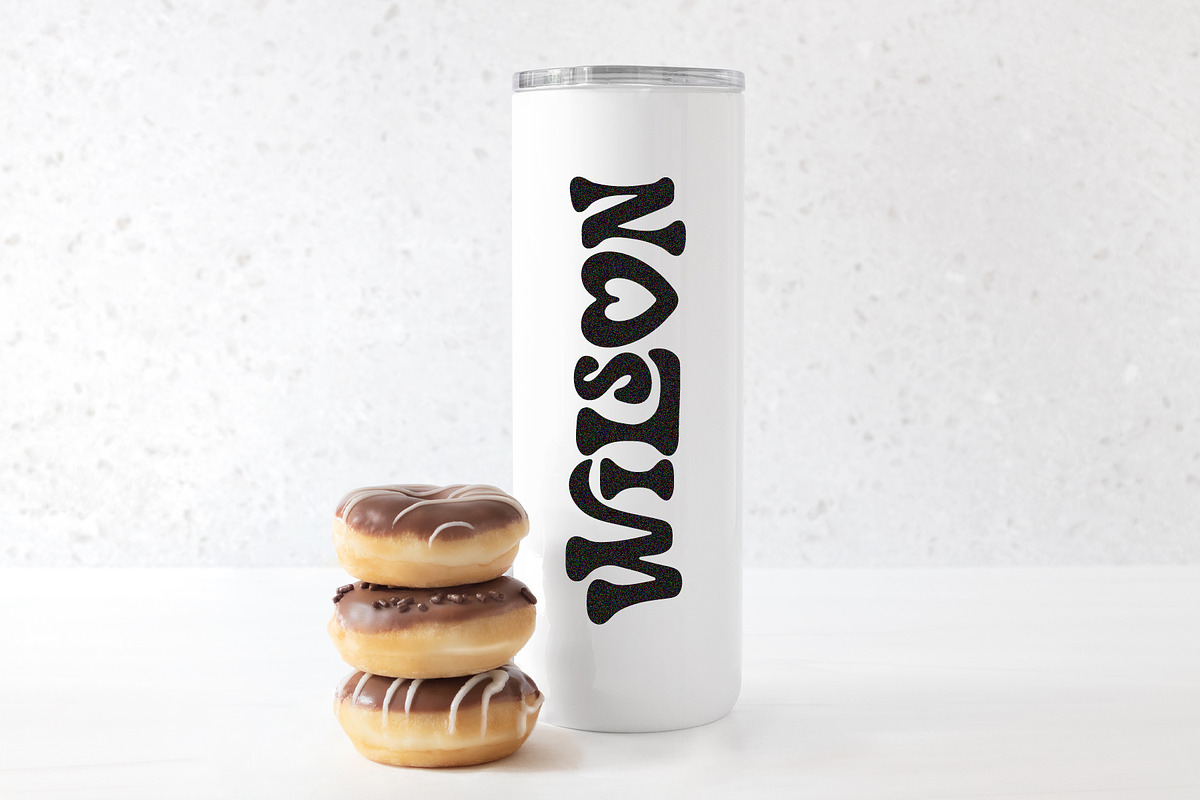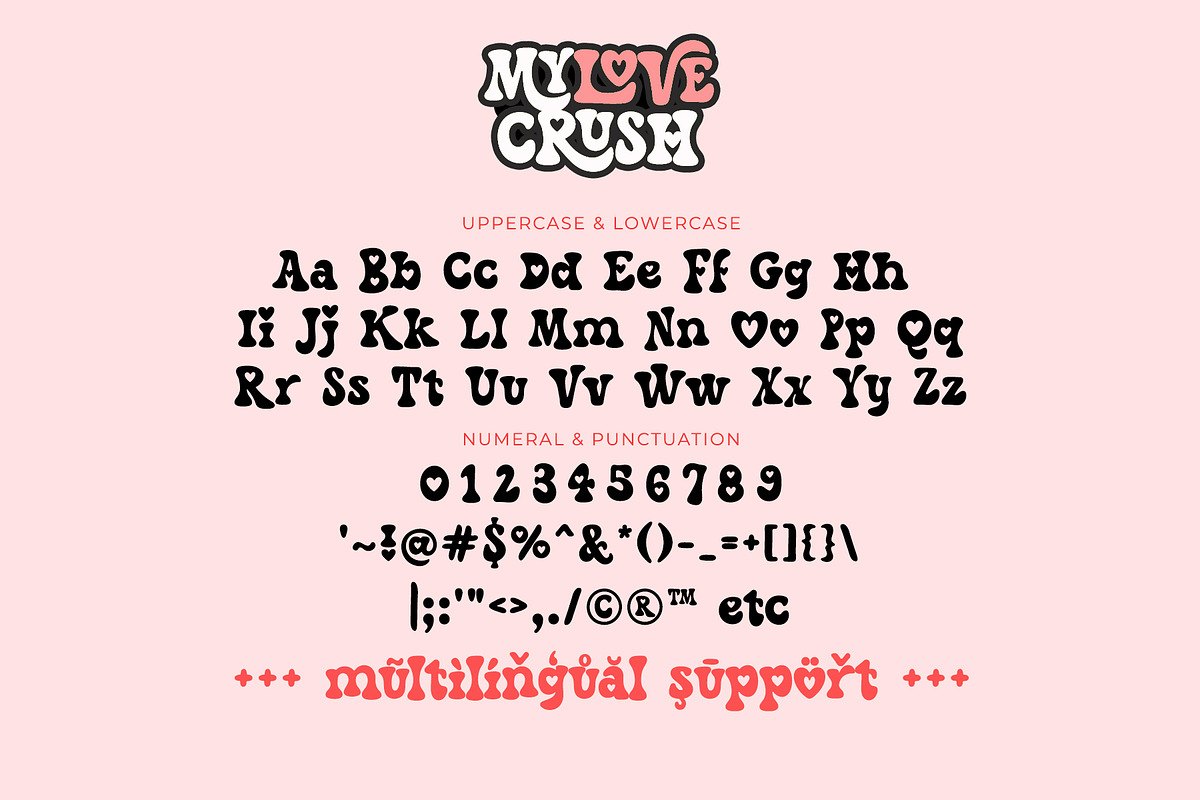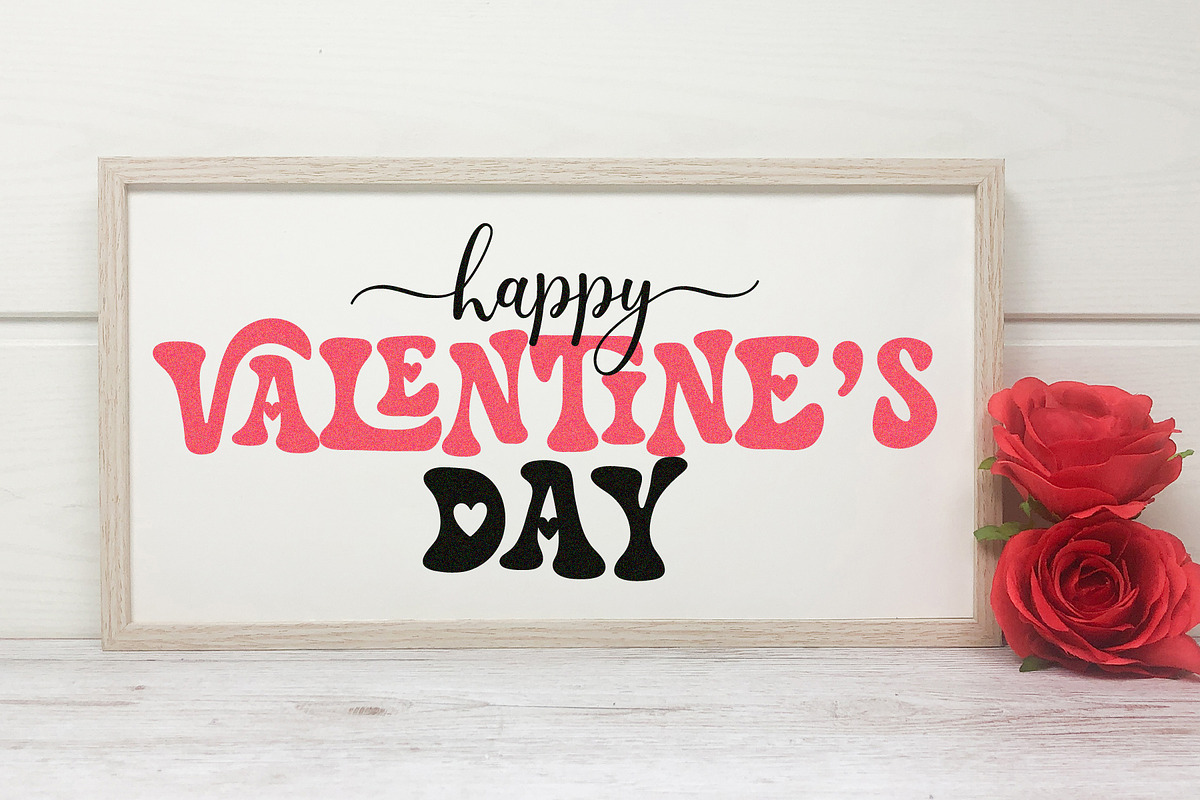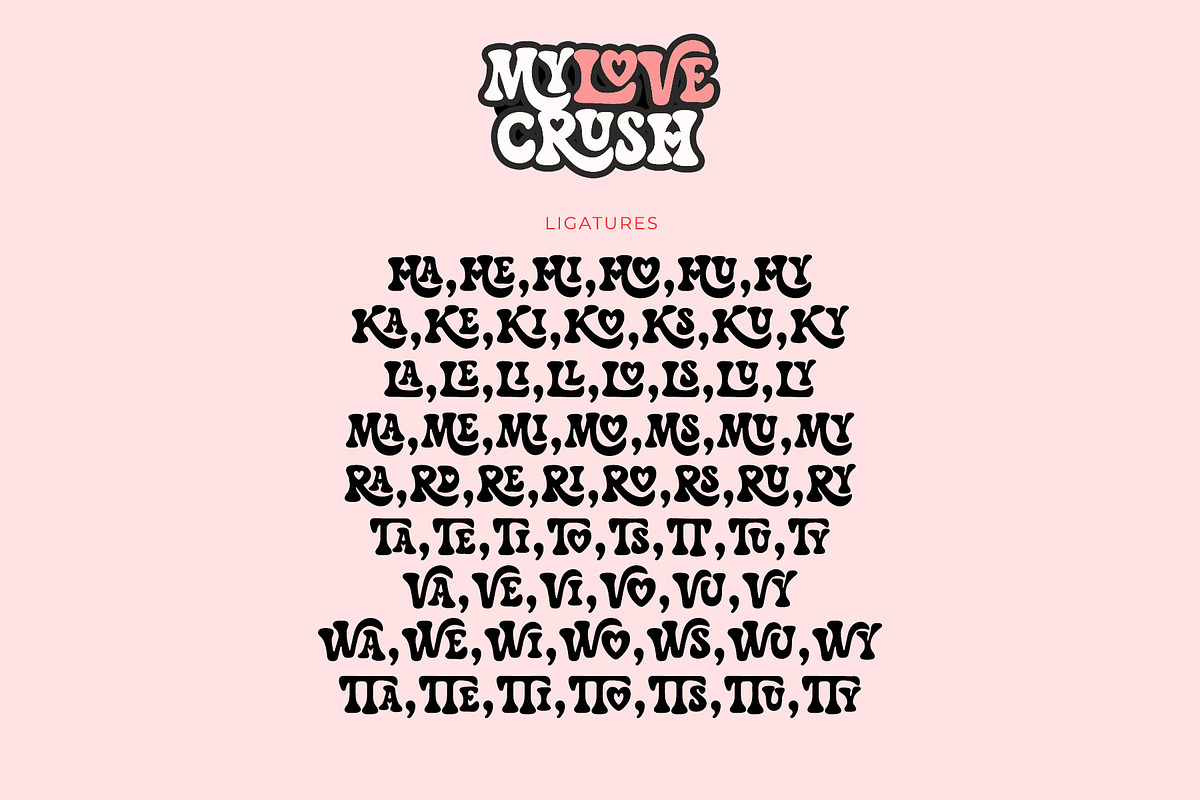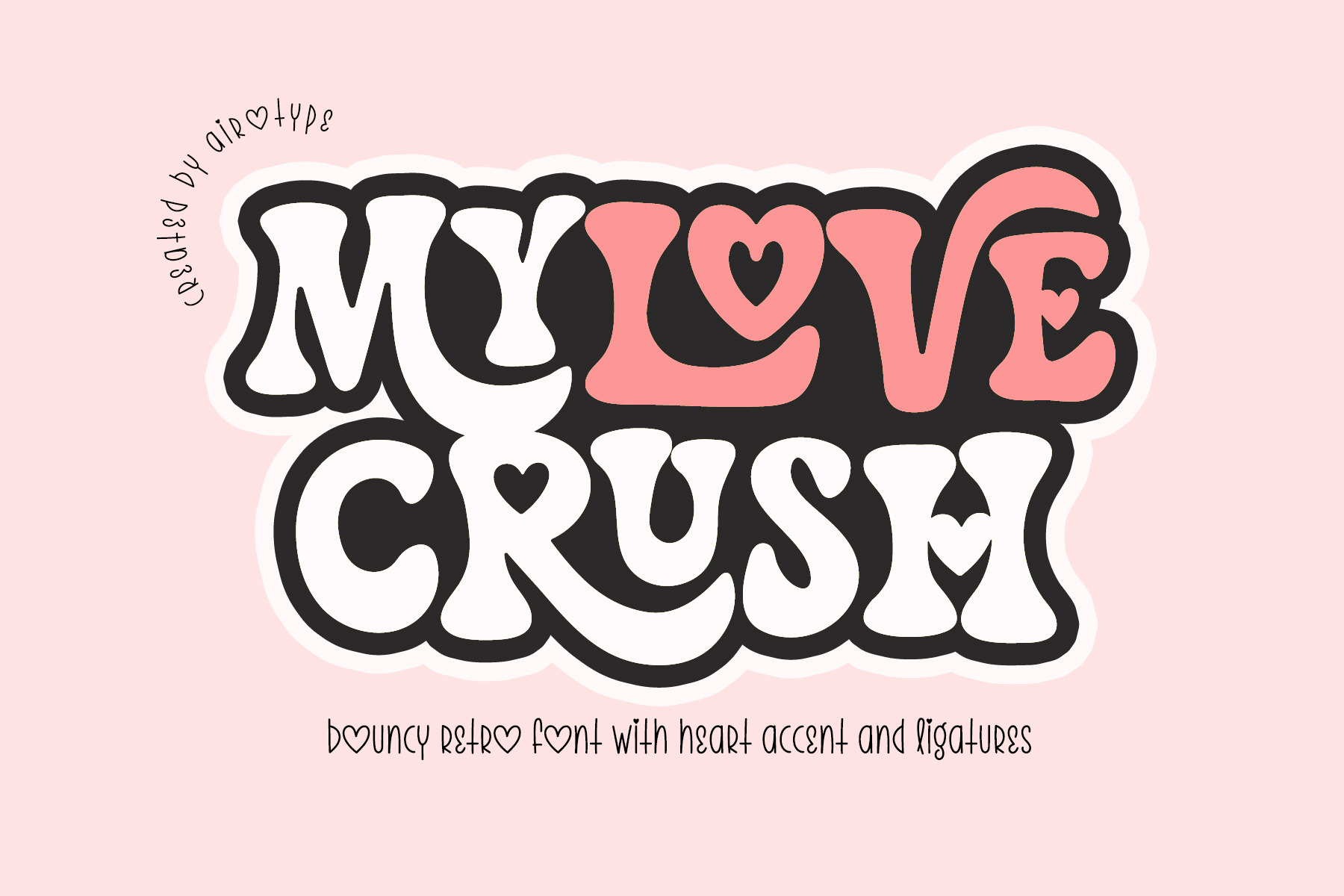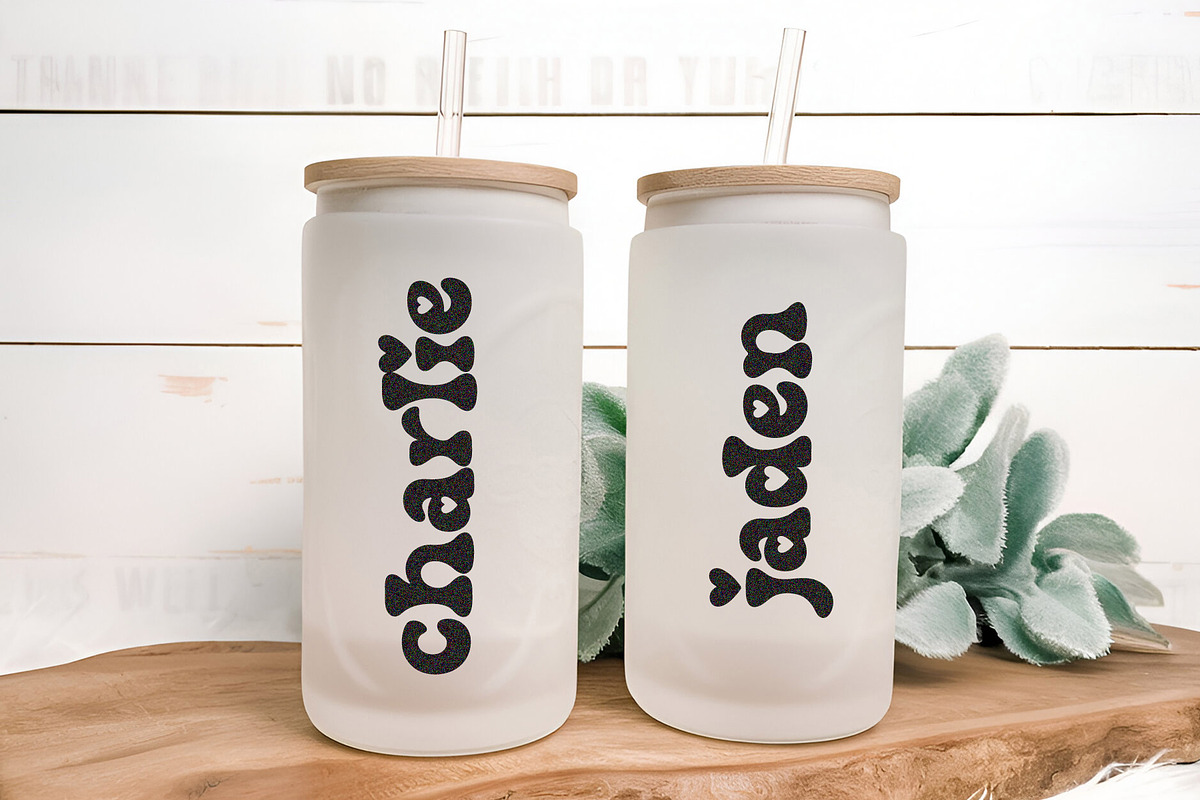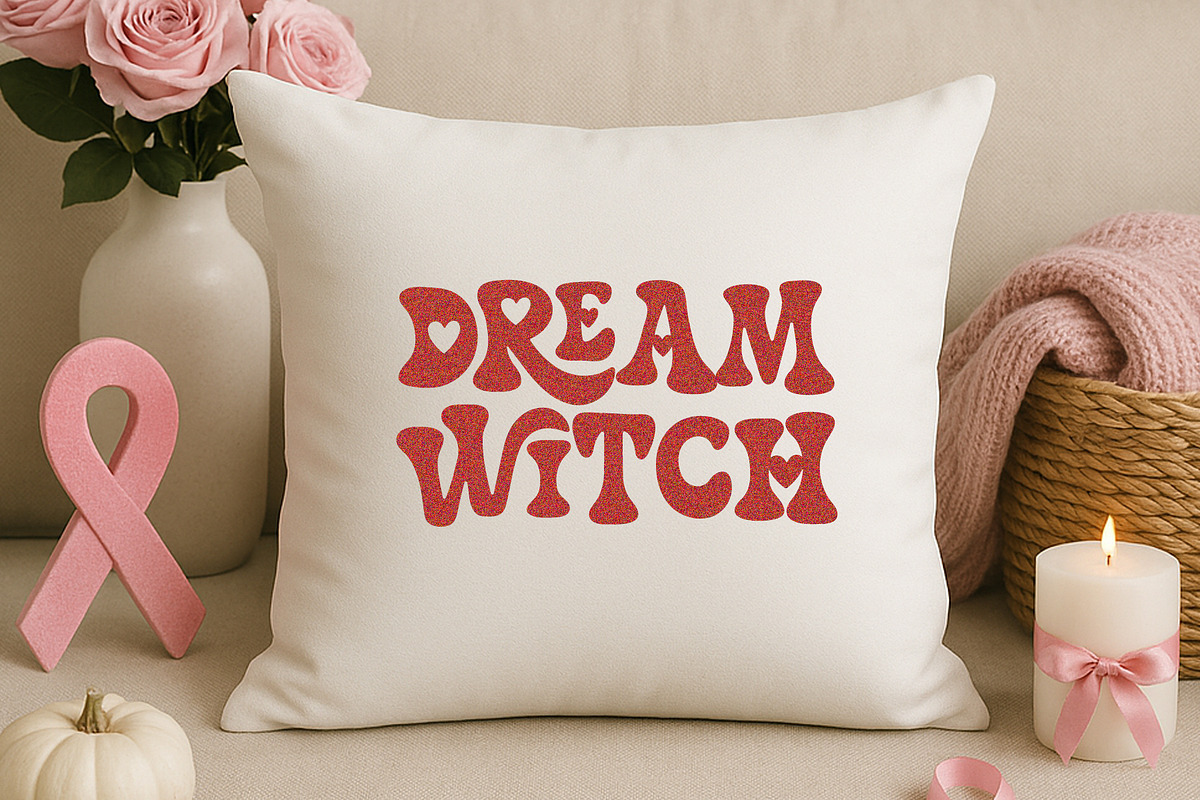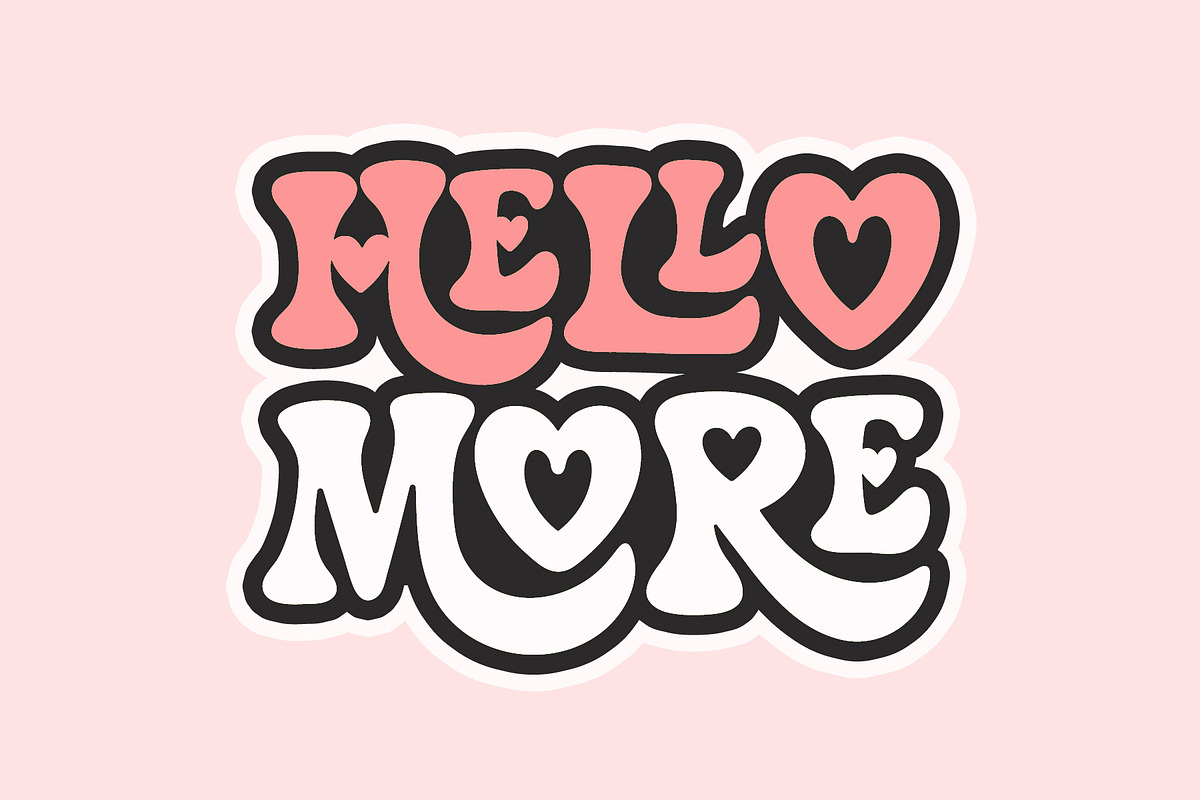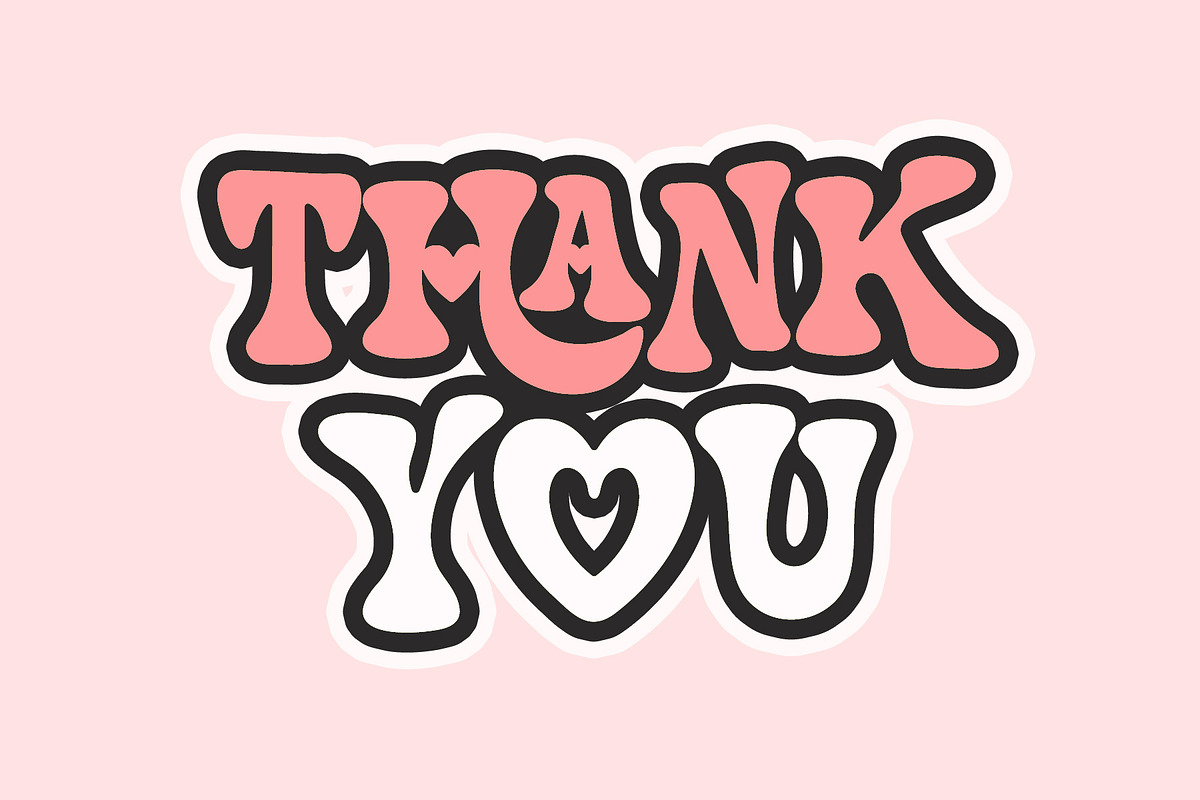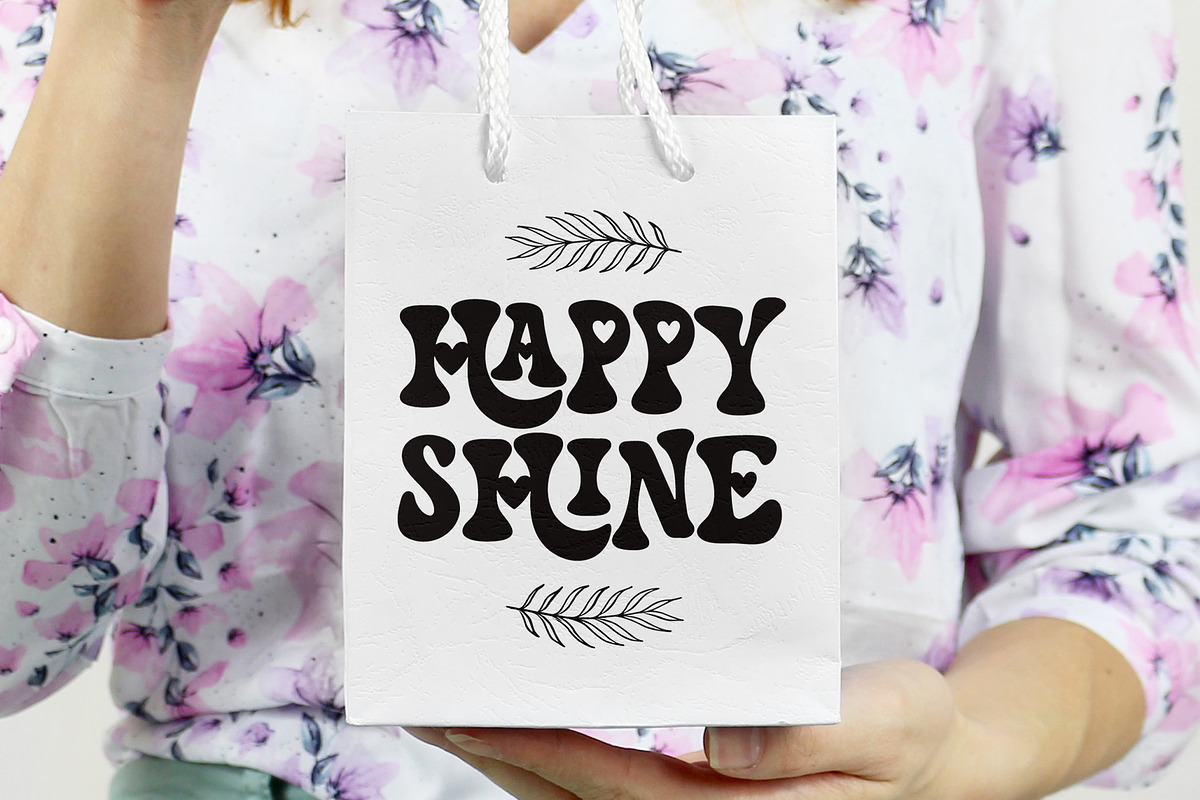
My Love Crush - Heart Cute Font
My Love Crush is bubbly and cute font with retro vibes. This font has heart accent, to give more lovely and romantic touch. It is created for special moment with love vibes, such as Valentine's Day, thanksgiving, and others.
My Love Crush has tons of ligatures with cute style. Make sure your design software has ligature features.
This font is pretty perfect font for wide ranges of design that needs heart accent and playful touch, such as valentine's day, crafting, birthday, logo, wedding, stickers, t-shirt, school, sublimation, quotes, and many more.
- Uppercase and Lowercase (with some uppercase ligature)
- Most Multilingual Accent